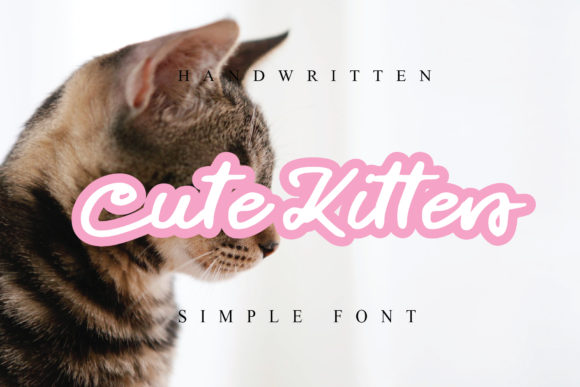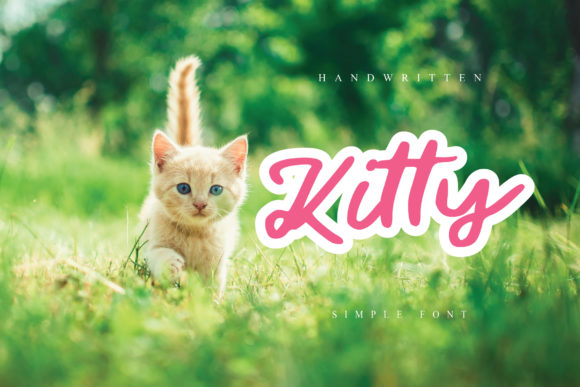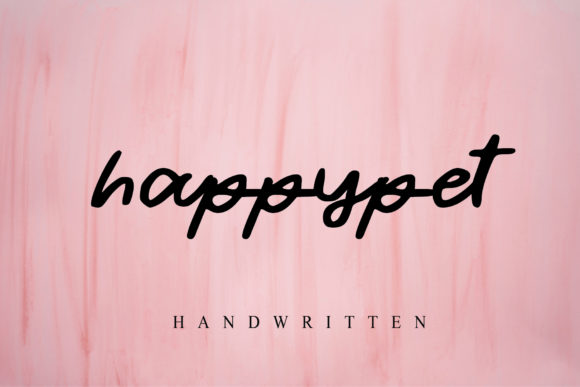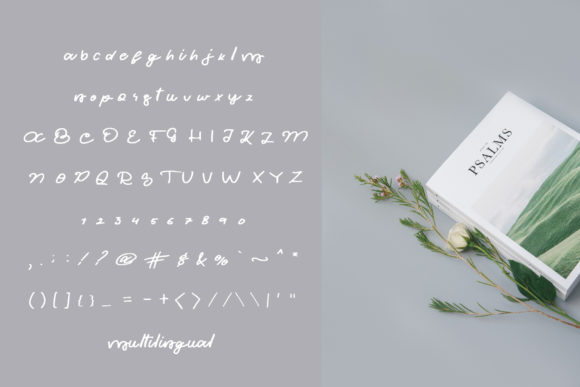
Cutie Cat Font
About Cutie Cat Font
Cutie Cat is a flowing handwritten font, described by an elegant touch, perfect for your favorite projects. Fall in love with its incredibly distinct and timeless style and use it to create spectacular designs!